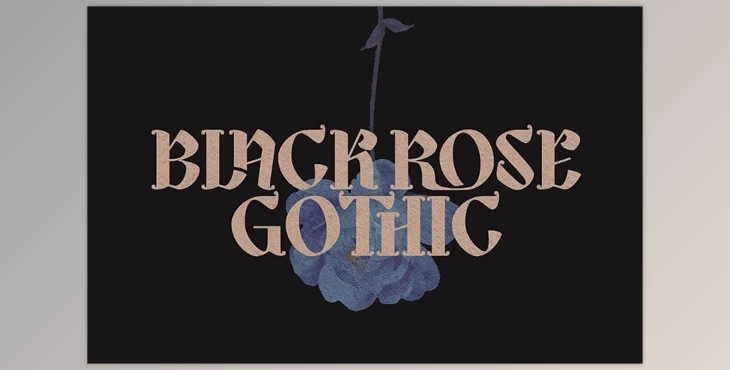
Black Rose Gothic Font is a refined gothic serif font that exudes dark elegance and vintage allure. Featuring artistic swashes, stylistic sets, and ligatures, it delivers a unique and moody aesthetic.
With multilingual support and compatibility in OTF, TTF, WOFF, and WOFF2 formats, it suits diverse design projects like branding, album covers, posters, and editorials. Perfect for creating sophistication and mystery, it’s a bold choice for impactful designs.